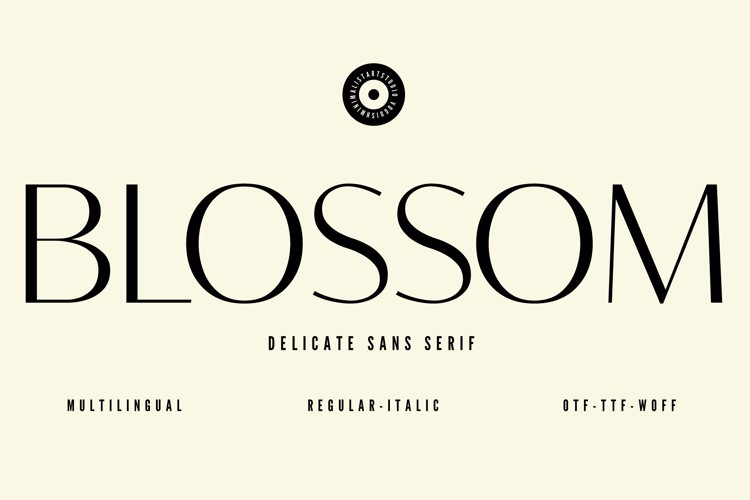
BLOSSOM Font
π¨ Font Name: Blossom by Minimalist Art Studio
π¨ Font Description: Blossom is a delicate sans serif with multilingual supportβperfect for feminine branding, minimalist packaging, and editorial elegance.
β Complete Latin set + multilingual diacritics
β Alternates, stylistic sets & ligatures
β Numbers, small caps, and extended punctuation
β Bonus italics and family styles